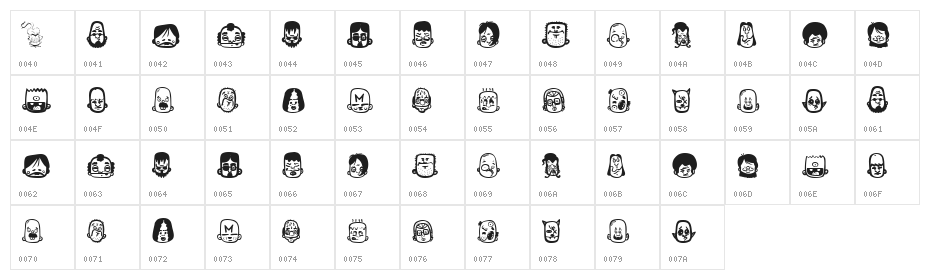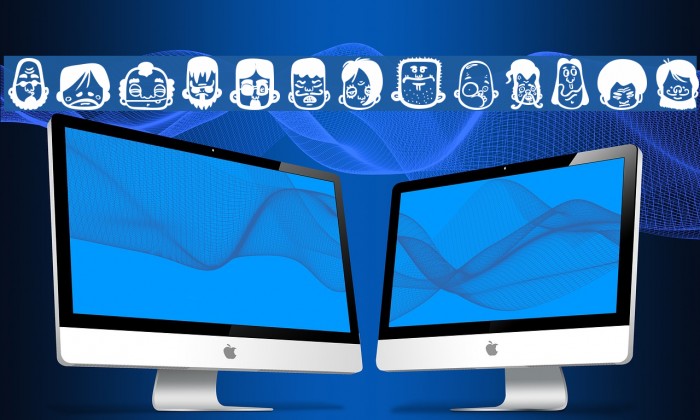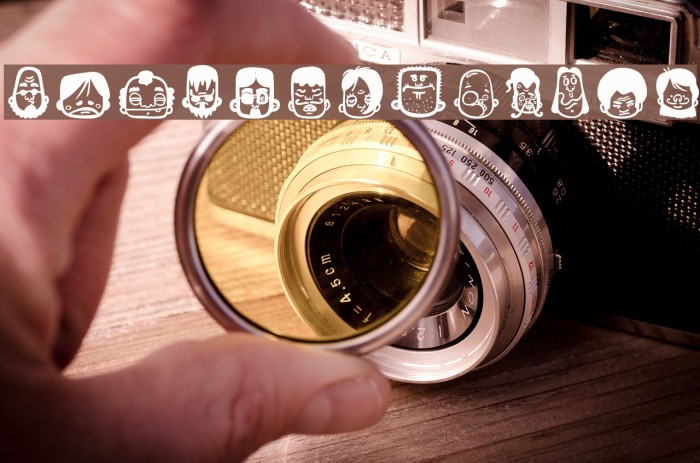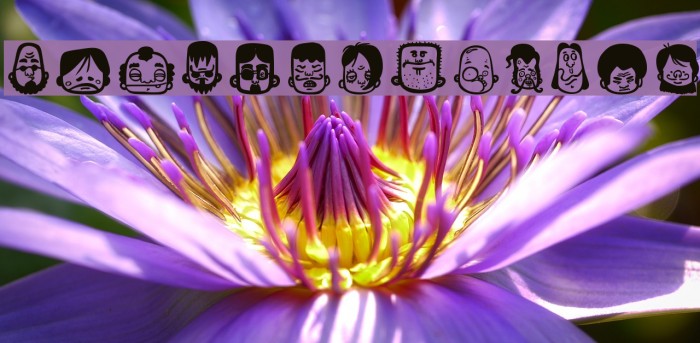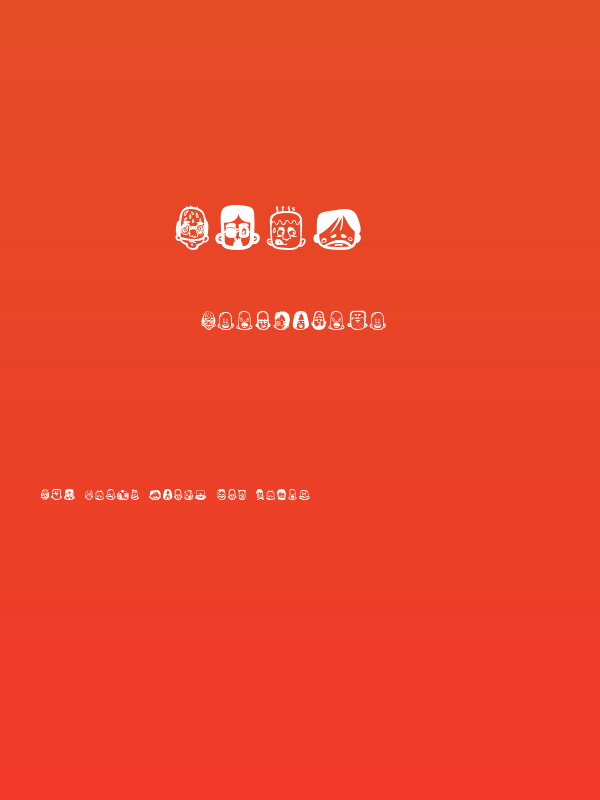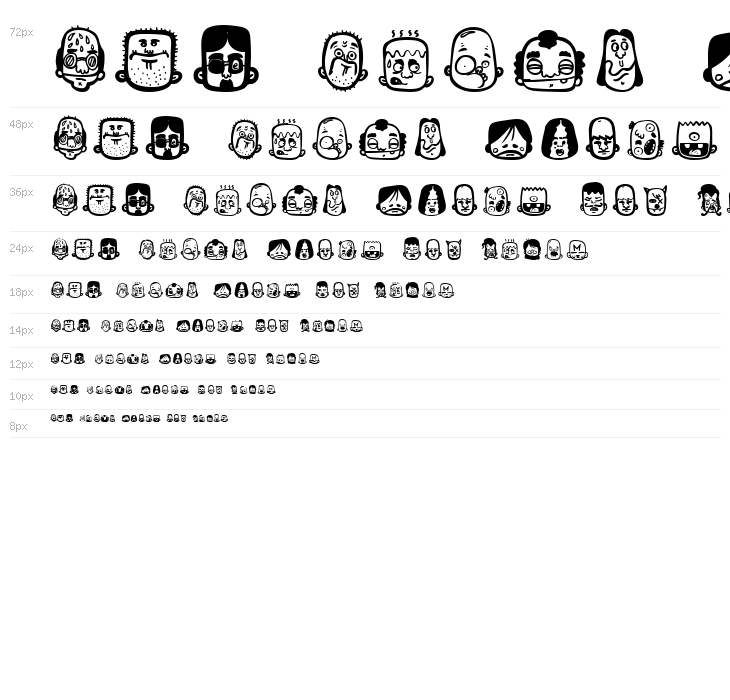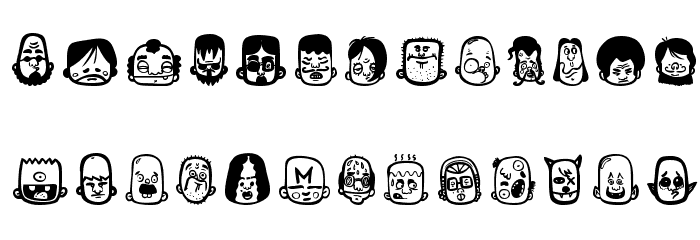
teubé5 Font
teubé5 Description
A highly decorative and playful font where each character is represented by a unique cartoon face illustration, each with distinct expressions and features, making it visually engaging and whimsical.
| Overall Style | Decorative, Playful, Whimsical |
| Use Case | Headlines, Logos, Posters, Children’s materials |
| Proposed Projects | Children’s books, comic titles, playful branding, party invitations, posters, novelty merchandise. |